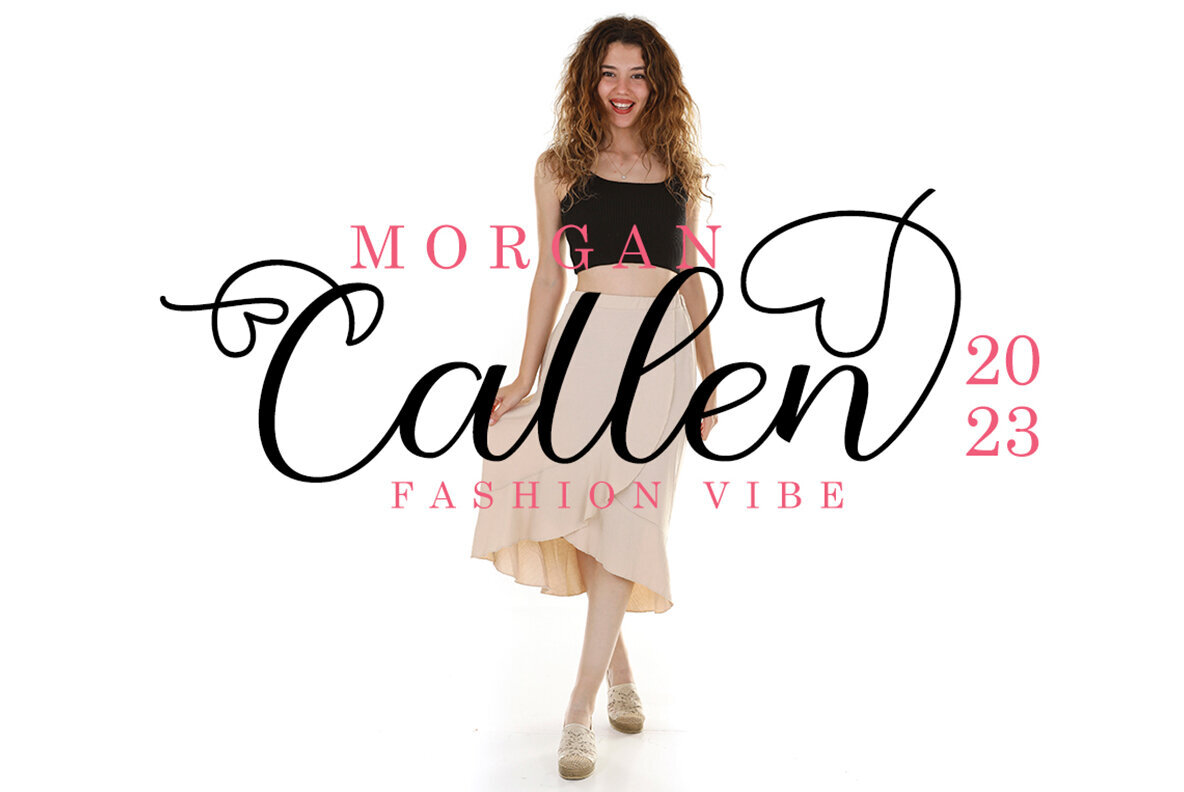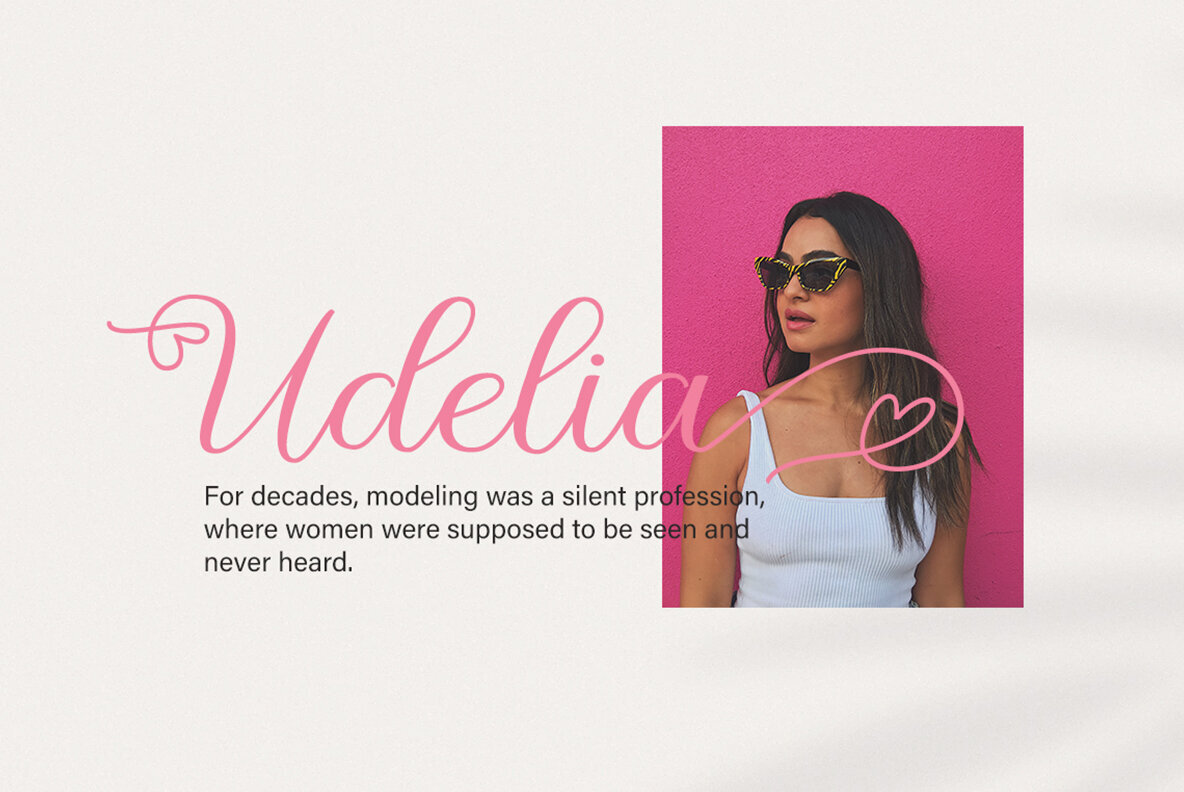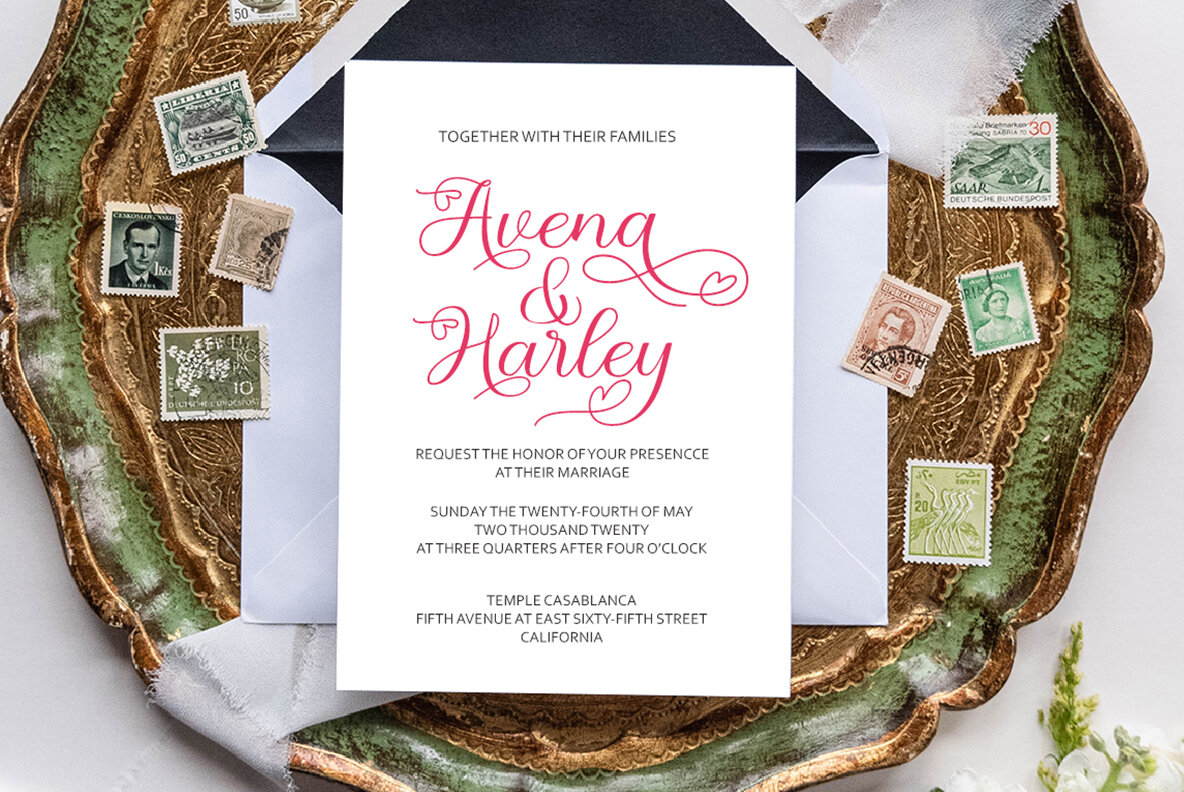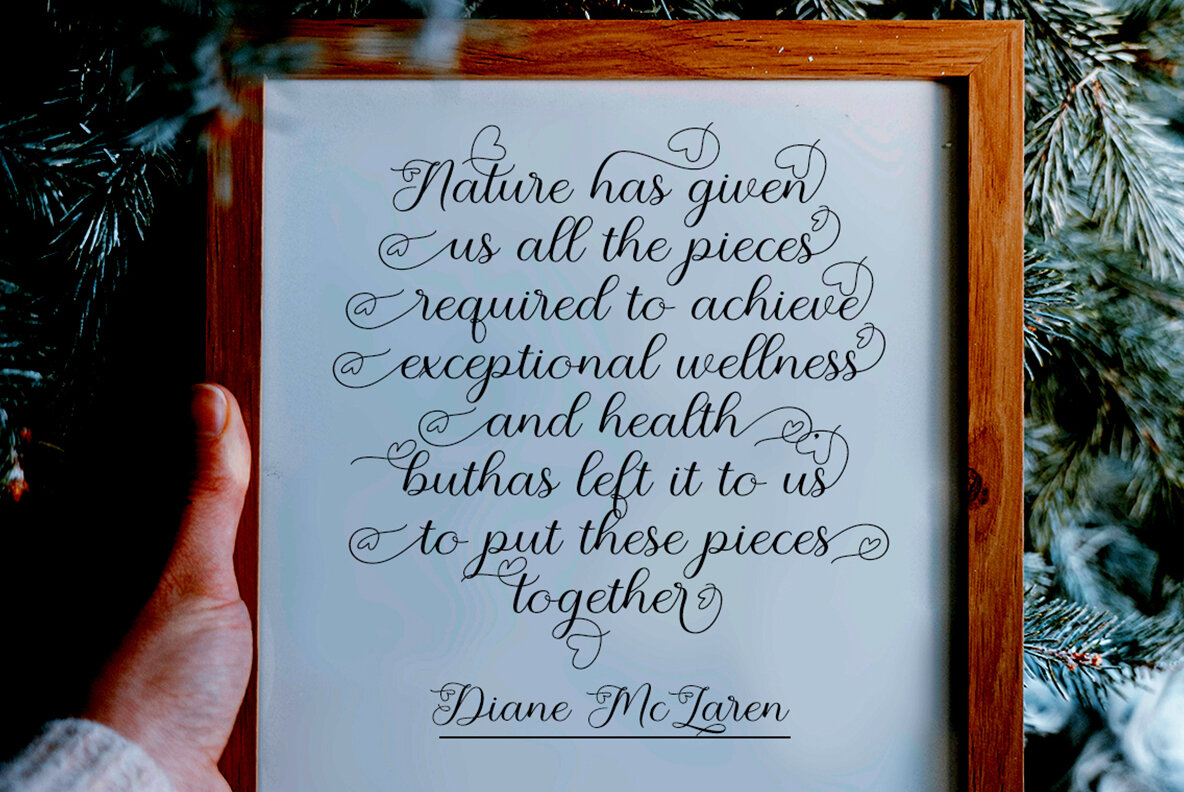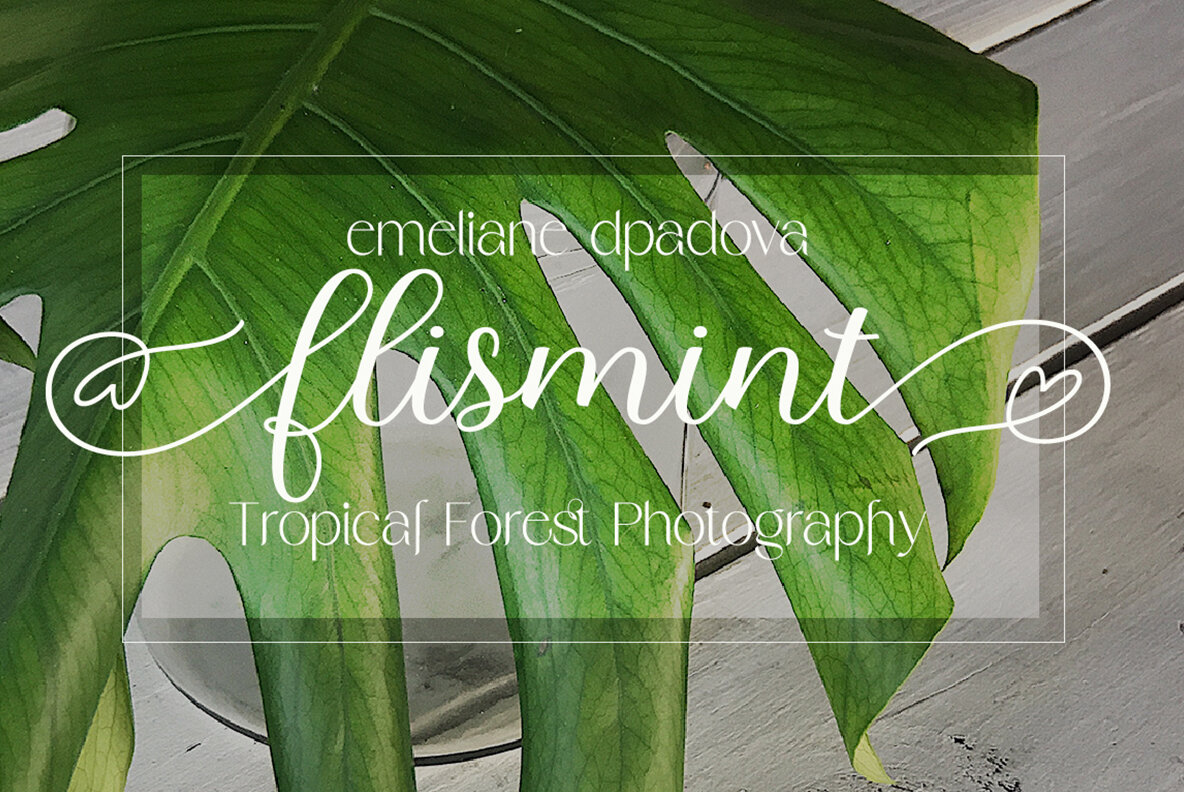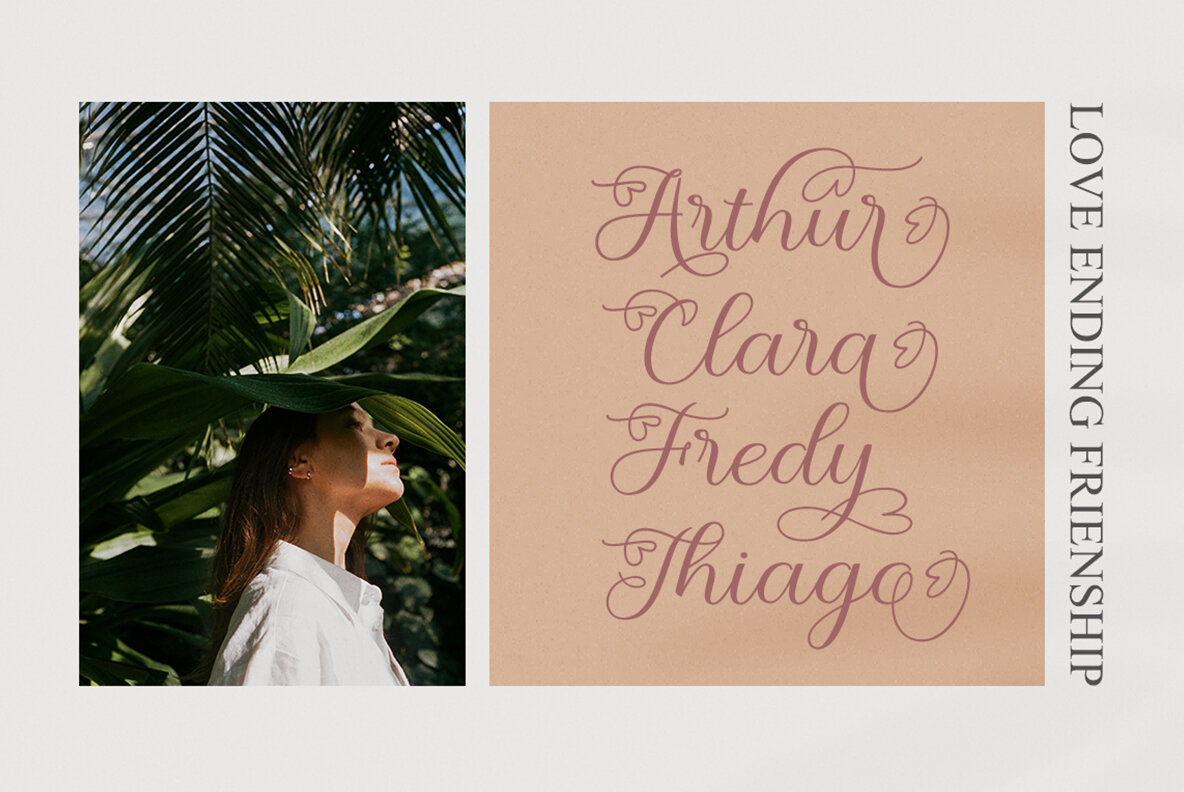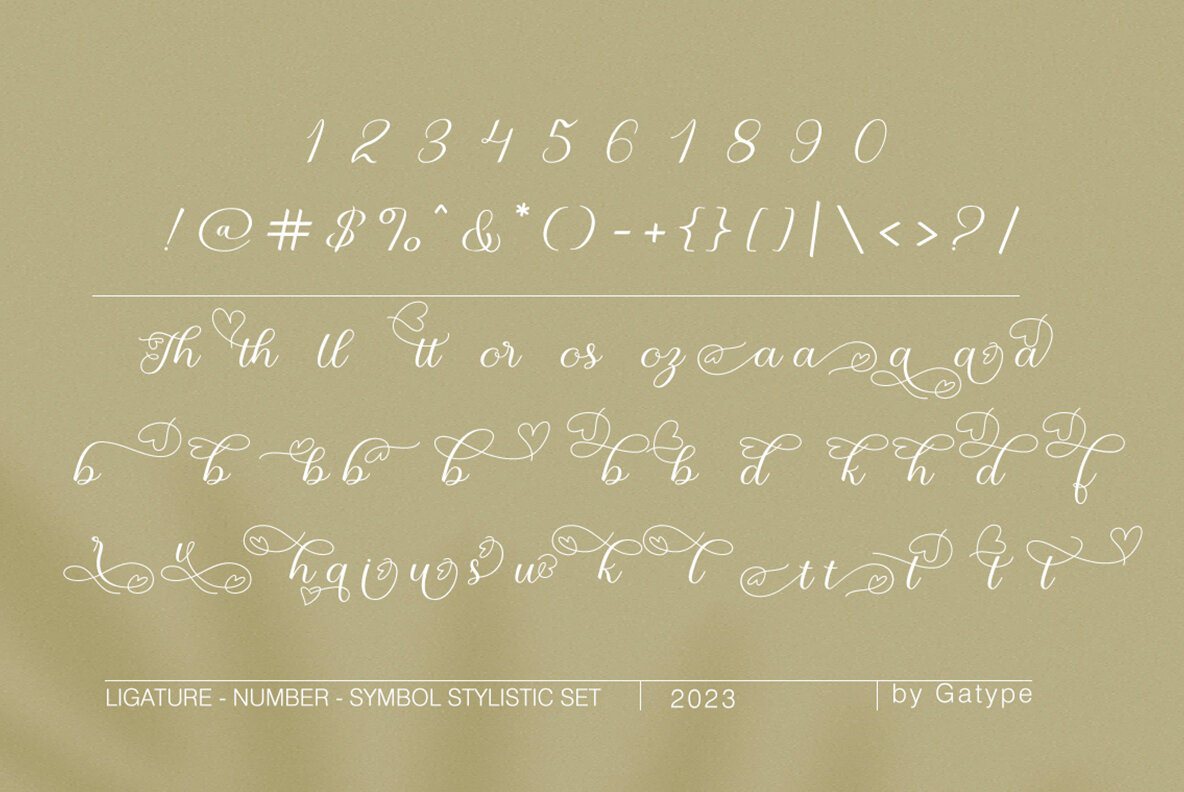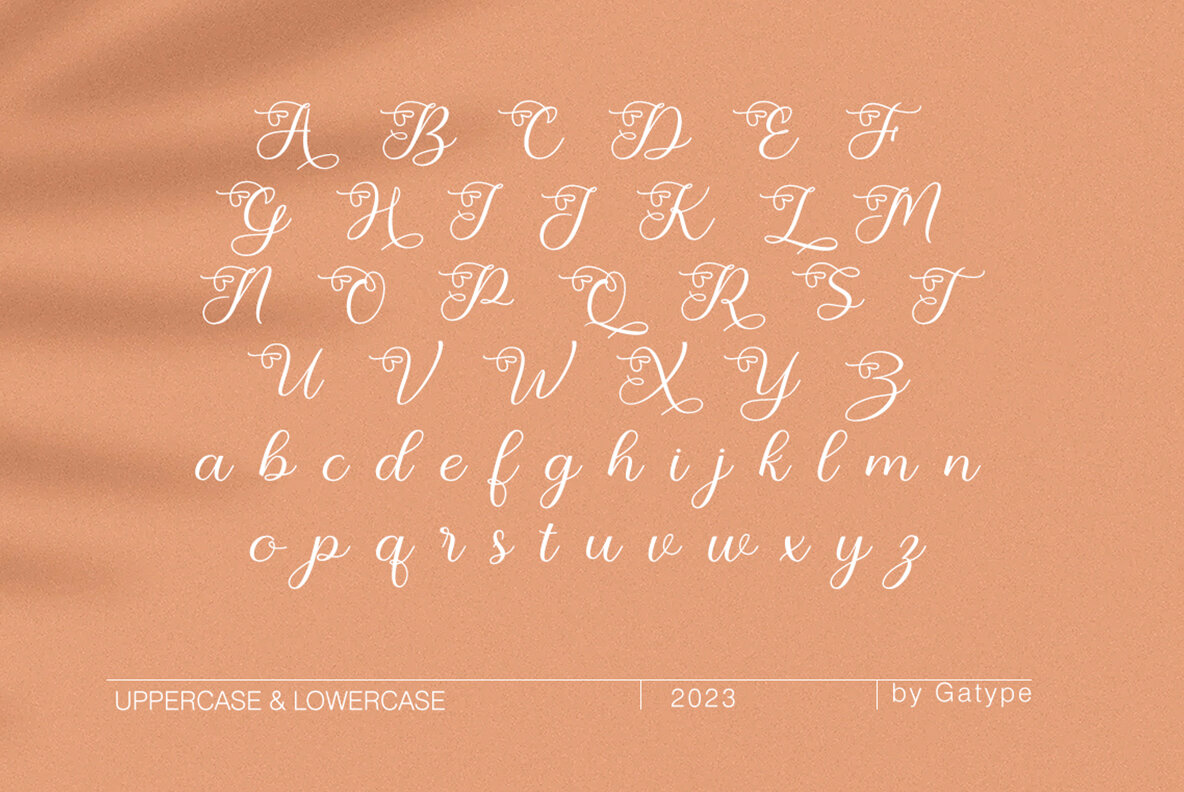
Yuliane Font
Yuliane Regular
Yuliane offers a seamless blend of classic handwritten charm and contemporary elegance, ideal for adding a sophisticated touch to your designs. This script font captures the grace of natural strokes, making it perfect for projects that require modern sophistication without appearing overly vintage. To fully utilize Yuliane's alternate glyphs, ensure you use software that supports OpenType features, such as Adobe Illustrator, InDesign, or Photoshop.Yuliane: Elegant Handwritten Script